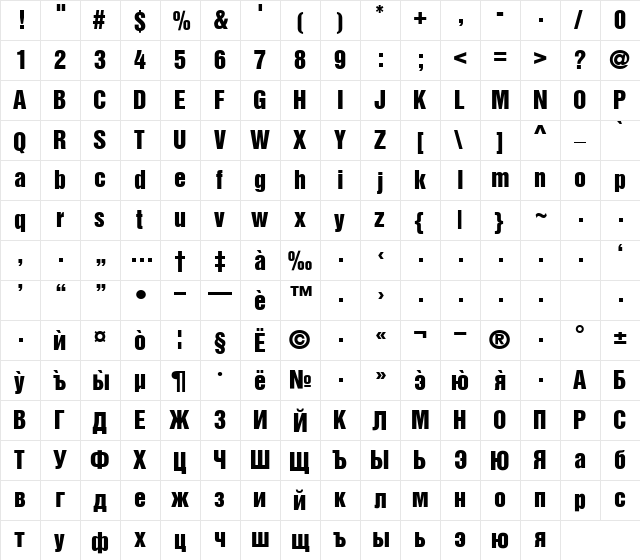
Iskar Bold Font Preview
Iskar Bold
Design Context for Iskar Typeface
Iskar offers clean, dependable letterforms without strong stylistic allegiance, making it a practical choice for designers who need flexibility. The heavy weight commands attention and anchors typographic hierarchies.